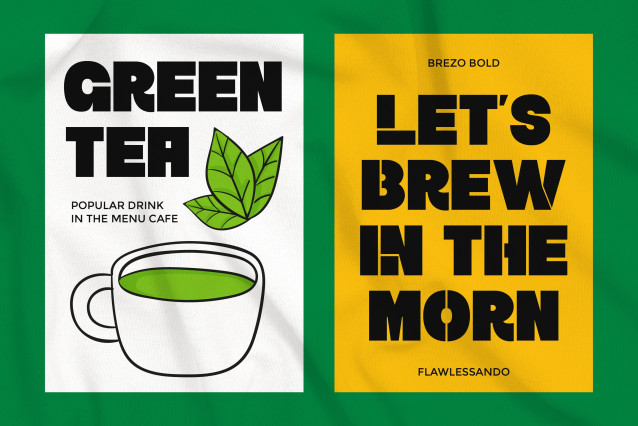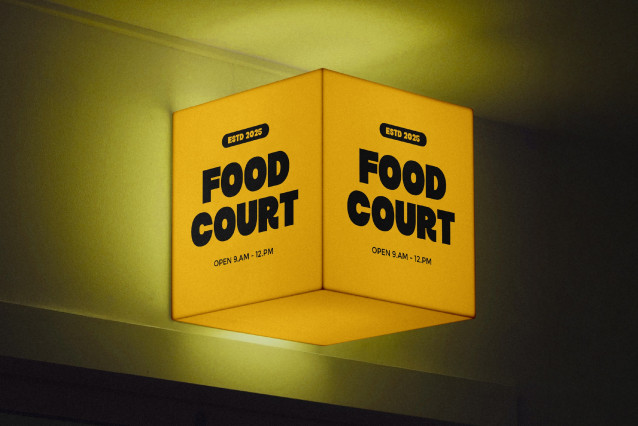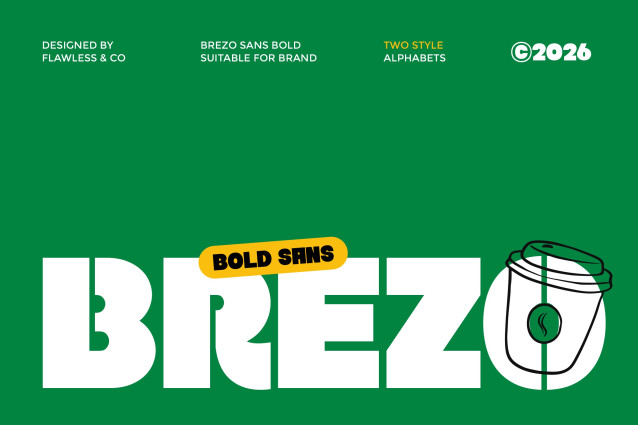
Brezo Font
Brezo Font is a bold sans-serif typeface designed to make an instant impact. With its strong, heavy letterforms and smooth curves, Brezo delivers a confident and friendly personality that stands out across a wide range of design applications.
Its clean structure and balanced proportions ensure excellent readability, while the rounded edges add a modern, approachable feel. Brezo is especially well-suited for branding, packaging, posters, and headlines where clarity and bold expression are essential.
Combining strength with simplicity, Brezo brings energy and versatility to any visual project, making it a reliable choice for designers looking to create striking and memorable designs.